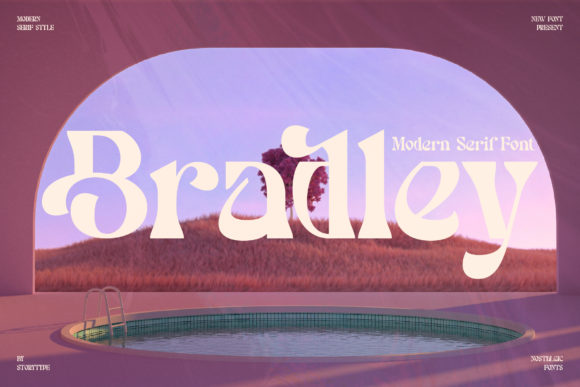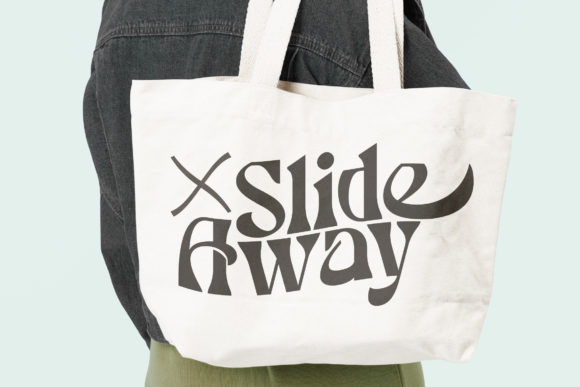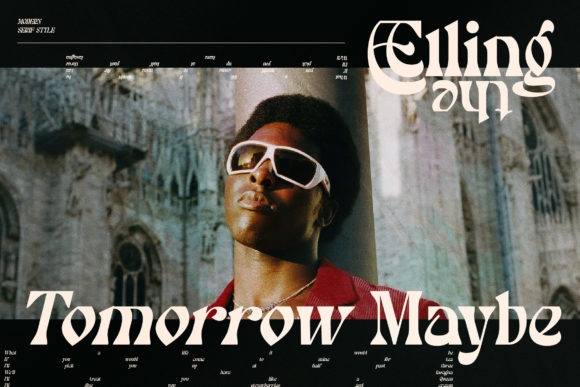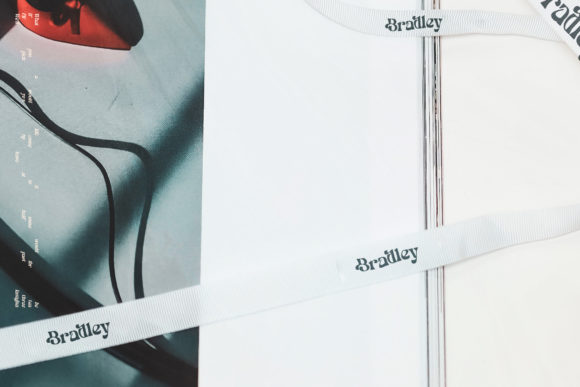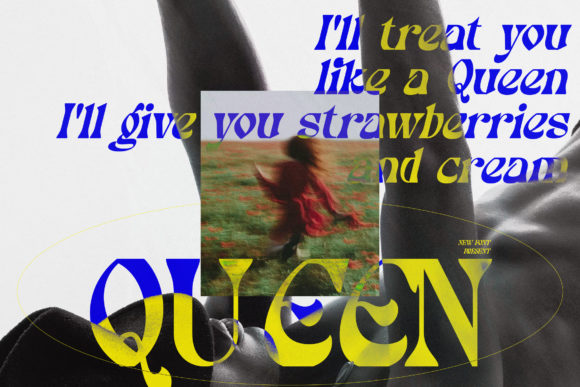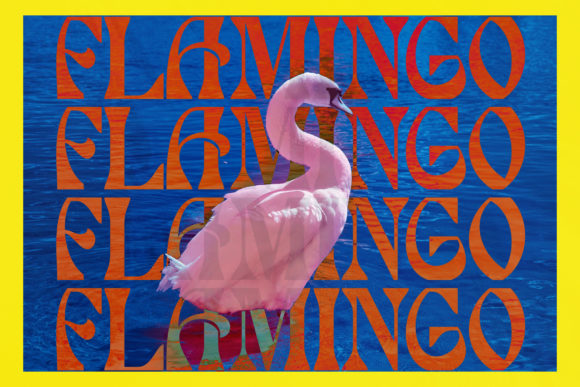
The Bradley Font: A Timeless Choice for Elegant Designs
I’ll never forget the time I was working on a luxury brand project, and my client asked for a font that exuded sophistication and elegance. I scoured the internet, tried out countless fonts, but nothing seemed to fit the bill. That was until I stumbled upon the Bradley font. Its bold, classic serif design immediately caught my eye, and I knew I had found the perfect fit. In this article, I’ll share my experience with the Bradley font, its features, and how to make the most of it in your designs.
What I Love About Bradley Font
The Bradley font is a gem, and here’s what makes it special:
- ✨ Unique and Classic Design: Bradley has its own distinct look that sets it apart from other serif fonts.
- ✅ PUA Encoded: This means you can access all glyphs and swashes with ease, giving you more creative freedom.
- 💯 Perfect for Luxury and Fashion Brands: The font’s elegant design makes it ideal for high-end brands, magazines, and fashion-related projects.
- 📚 Versatile: Use it for book or movie title designs, quotes, lettering, and more.
While the Bradley font is fantastic, there are a few things to keep in mind:
- 🤔 Glyph Overload: With so many glyphs and swashes available, it can be overwhelming to navigate. Take some time to explore the font’s features.
- ⚠️ Legibility at Small Sizes: As with many serif fonts, Bradley may not be the best choice for body text at small font sizes.
The Story Behind Bradley Font
The Bradley font was designed with elegance and sophistication in mind. Its creator aimed to craft a font that would evoke a sense of luxury and refinement. The result is a timeless design that works beautifully for high-end brands, fashion projects, and more.
| Font Name | Bradley Font |
| Author | Storytype Studio |
| What is the Bradley font best used for? | The Bradley font is perfect for luxury and fashion brands, book or movie title designs, quotes, lettering, and more. |
| Is the Bradley font PUA encoded? | Yes, the Bradley font is PUA encoded, making it easy to access all glyphs and swashes. |
| Is the Bradley font suitable for body text? | While the Bradley font is stunning, it’s not ideal for body text at small font sizes. Consider using a sans-serif font for body text and reserving Bradley for headings and titles. |
In conclusion, the Bradley font is an excellent choice for designers, crafters, and creative hobbyists looking to add a touch of elegance and sophistication to their projects. With its unique design, PUA encoding, and versatility, it’s perfect for a wide range of applications. By following the tips and guidelines outlined in this article, you’ll be able to make the most of the Bradley font and create stunning designs that impress.